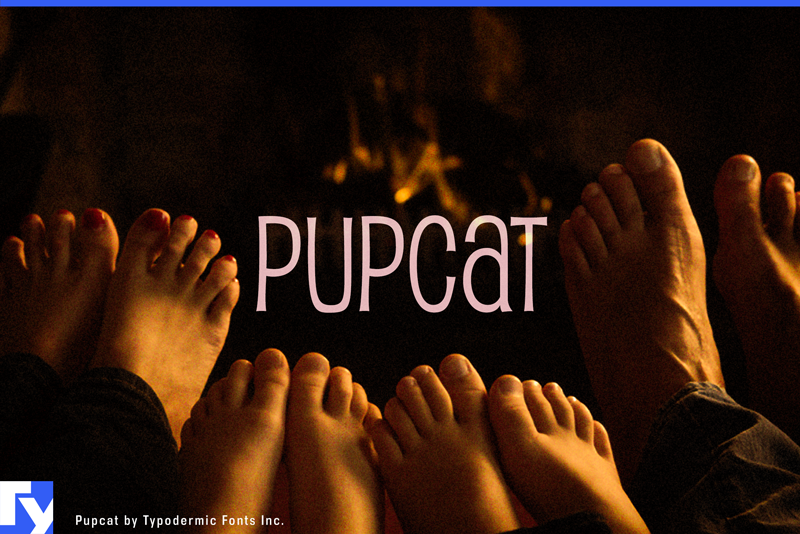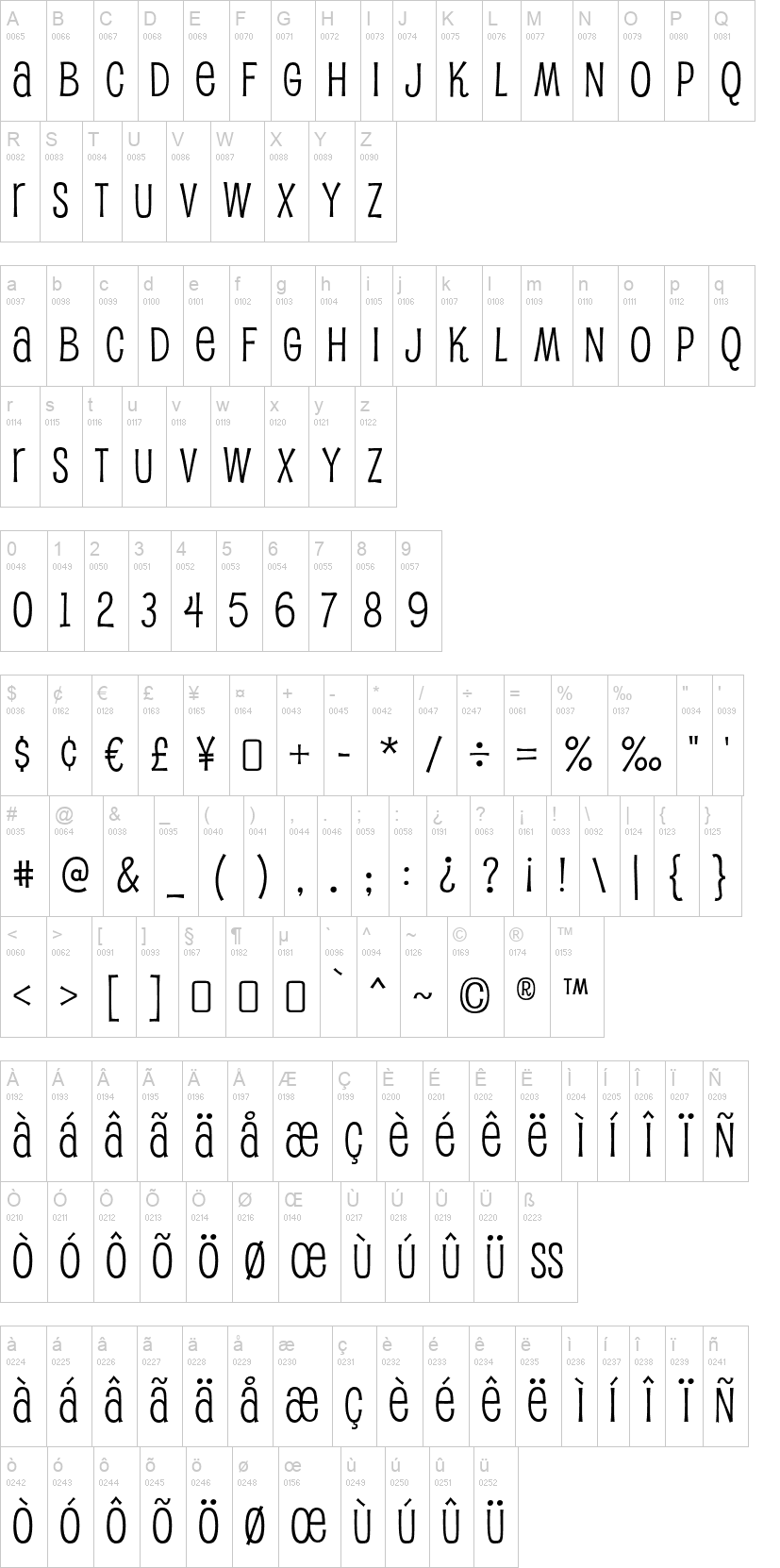
Note of the authorPupcat is a display typeface inspired by movie posters from the 1960s. Your message will have a less-than-serious vibe thanks to the unorthodox unicase typeface and flared strokes. It comes in four weights and italics. Most Latin-based European writing systems are supported, including the following languages. Afaan Oromo, Afar, Afrikaans, Albanian, Alsatian, Aromanian, Aymara, Bashkir (Latin), Basque, Belarusian (Latin), Bemba, Bikol, Bosnian, Breton, Cape Verdean, Creole, Catalan, Cebuano, Chamorro, Chavacano, Chichewa, Crimean Tatar (Latin), Croatian, Czech, Danish, Dawan, Dholuo, Dutch, English, Estonian, Faroese, Fijian, Filipino, Finnish, French, Frisian, Friulian, Gagauz (Latin), Galician, Ganda, Genoese, German, Greenlandic, Guadeloupean Creole, Haitian Creole, Hawaiian, Hiligaynon, Hungarian, Icelandic, Ilocano, Indonesian, Irish, Italian, Jamaican, Kaqchikel, Karakalpak (Latin), Kashubian, Kikongo, Kinyarwanda, Kirundi, Kurdish (Latin), Latvian, Lithuanian, Lombard, Low Saxon, Luxembourgish, Maasai, Makhuwa, Malay, Maltese, Māori, Moldovan, Montenegrin, Ndebele, Neapolitan, Norwegian, Novial, Occitan, Ossetian (Latin), Papiamento, Piedmontese, Polish, Portuguese, Quechua, Rarotongan, Romanian, Romansh, Sami, Sango, Saramaccan, Sardinian, Scottish Gaelic, Serbian (Latin), Shona, Sicilian, Silesian, Slovak, Slovenian, Somali, Sorbian, Sotho, Spanish, Swahili, Swazi, Swedish, Tagalog, Tahitian, Tetum, Tongan, Tshiluba, Tsonga, Tswana, Tumbuka, Turkish, Turkmen (Latin), Tuvaluan, Uzbek (Latin), Venetian, Vepsian, Võro, Walloon, Waray-Waray, Wayuu, Welsh, Wolof, Xhosa, Yapese, Zapotec Zulu and Zuni.